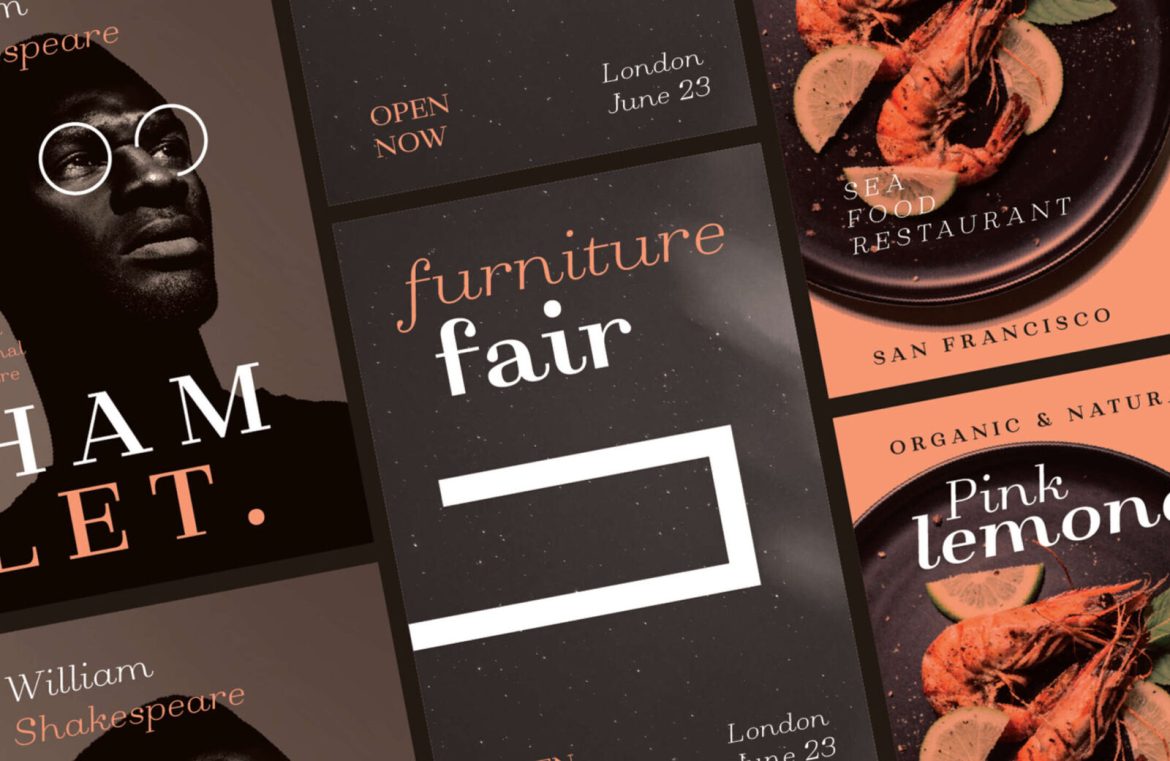
Every month, we scout the web for standout typefaces that add a unique flair to written communication. Here’s a roundup of the top newly released fonts that caught our eye this September, from boundary-pushing designs to updated classics.
Our handpicked selection boasts typefaces brimming with character, evoking nostalgia, and delivering exquisite interpretations of timeless styles.
Journalistic Charm
The Journalistic Charm font is a condensed typeface that balances soft curves with precise angles, offering distinct personality at large sizes and practicality for everyday use.
Mayan Modern
Inspired by Mexico’s Yucatan Peninsula, Mayan Modern is a versatile variable font, contrasting bold forms with sharp tapers for an energetically modern design.
Slanted Sophistication
With an intriguing slant applied to its lowercase, Slanted Sophistication infuses contemporary elegance into blocks of text with its high-contrast serif design.
Sharp Digital
The Sharp Digital font brings streamlined, simplified forms to the digital realm, offering a suite of styles and weights that cater to versatile digital experiences.
Elegant Scribe
Script fonts abound, but Elegant Scribe sets itself apart with its calligraphic grace, perfectly suited for short yet impactful display text.
Vintage Fright
Channel the eerie allure of 70s horror with Vintage Fright, an ideal font for Halloween designs, nostalgic projects, and hard-rock branding.
Breezy Script
The Breezy Script font exudes a carefree, optimistic vibe perfect for branding luxury resorts, travel agencies, or culinary establishments.
Artistic Link
Artistic Link surprises with inventive tweaks that spice up an otherwise conventional font design, perfect for creating captivating written pieces.
Playful Modernity
Featuring a distinctly contemporary French aesthetic, Playful Modernity energizes text with stylistic variations, making it a go-to for branding projects.
Typographic Toolkit
Typographic Toolkit delivers a versatile array of fonts, offering multiple writing systems, widths, and weights streamlined into a single practical variable font option.
Dynamic Brush
The Dynamic Brush script charges with vitality, perfect for brands associated with fitness, high-energy beverages, or any field requiring a bold presence.
Retro Relaxation
Retro Relaxation transports you back to the carefree days of the late 60s and 70s, ideal for casual wear branding, themed editorial content, and vintage designs.
Striking Serifs
Featuring pronounced contrasts and large serifs, Striking Serifs boasts bold shapes that offer a standout aesthetic unlike any other.
Hallow’s Eve Typeface
With Hallow’s Eve Typeface, you’re equipped with the perfect spooky font for celebrating the season of scares and fun.
Corporate to Quirky
Corporate to Quirky transitions seamlessly from business professionalism at smaller sizes to playful personality when displayed prominently.